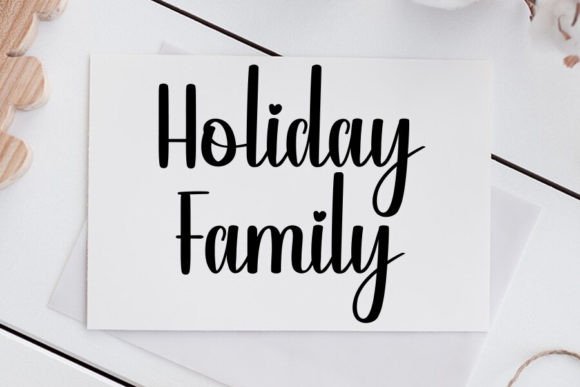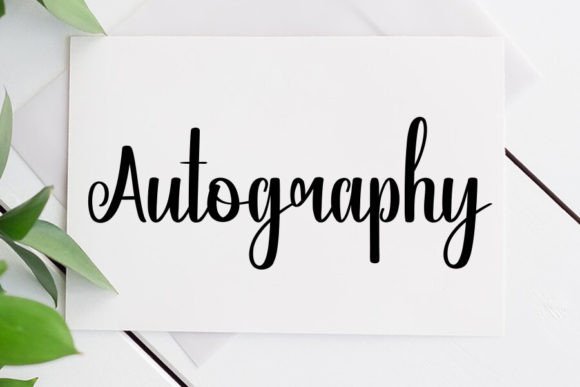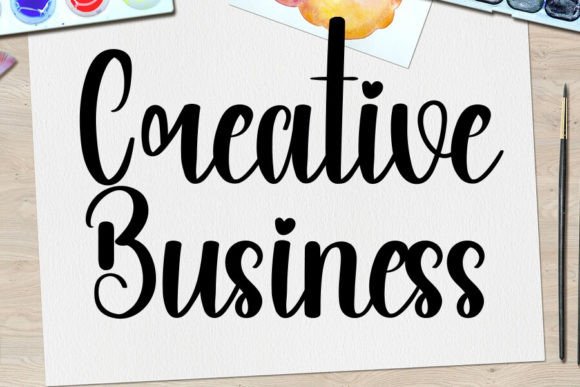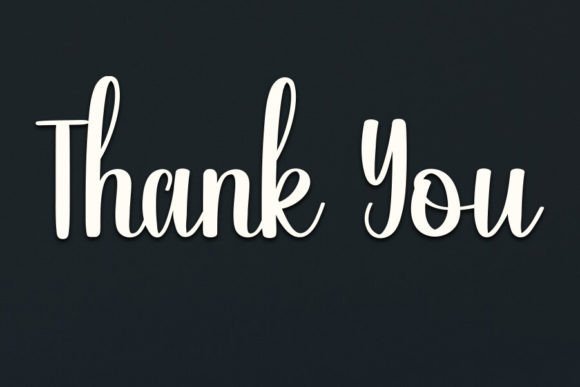
Discover the Charm of Angela Font: A Simple yet Versatile Handwritten Font
Are you looking for a font that can add a touch of simplicity and natural elegance to your design projects? Look no further than Angela Font! This beautiful handwritten font is perfect for a wide range of applications, from greeting cards and invitations to headlines and more. In this article, we’ll explore the features and benefits of Angela Font, and show you how it can elevate your designs to the next level.
What is Angela Font?
Angela Font is a simple yet charming handwritten font that is designed to bring a sense of warmth and approachability to your designs. With its clean lines and effortless flow, this font is perfect for creating a natural and organic look that will resonate with your audience. Whether you’re working on a personal project or a professional one, Angela Font is sure to impress.
Key Features of Angela Font
- Simple and Handwritten: Angela Font has a beautifully handwritten feel that is both simple and elegant.
- Versatile: This font can be used for a wide range of applications, from greeting cards and invitations to headlines and more.
- Natural and Organic: Angela Font has a natural flow that will add a touch of warmth and approachability to your designs.
- Easy to Read: The clean lines and simple design of Angela Font make it easy to read, even at small sizes.
Uses for Angela Font
Angela Font is a versatile font that can be used for a wide range of projects, including:
- Greeting Cards: Add a personal touch to your greeting cards with Angela Font’s charming handwritten style.
- Invitations: Create beautiful and elegant invitations for weddings, parties, and other special events.
- Headlines: Use Angela Font to add a touch of simplicity and elegance to your headlines and titles.
- Signage: Create eye-catching signs and posters with Angela Font’s clean and easy-to-read design.
- Digital Media: Use Angela Font in your digital media projects, such as social media graphics, blog posts, and more.
Benefits of Using Angela Font
There are many benefits to using Angela Font in your design projects, including:
- Unique and Creative: Angela Font offers a unique and creative way to add a personal touch to your designs.
- Time-Saving: With Angela Font, you can create beautiful and professional-looking designs in no time.
Tips for Using Angela Font
Here are a few tips for getting the most out of Angela Font:
- Experiment with Different Sizes: Try using Angela Font in different sizes to create visual interest and hierarchy in your designs.
- Pair with Other Fonts: Combine Angela Font with other fonts to create a unique and creative look.
- Use for Body Text: Angela Font is easy to read, making it perfect for use in body text.
- Add a Personal Touch: Use Angela Font to add a personal touch to your designs, such as in quotes or testimonials.
Angela Font is a beautiful and versatile handwritten font that is perfect for adding a touch of simplicity and natural elegance to your design projects. With its clean lines, effortless flow, and easy-to-read design, this font is sure to impress. Whether you’re a designer, crafter, or DIY enthusiast, Angela Font is a great choice for any project. So why wait? Download Angela Font today and start creating beautiful and professional-looking designs!